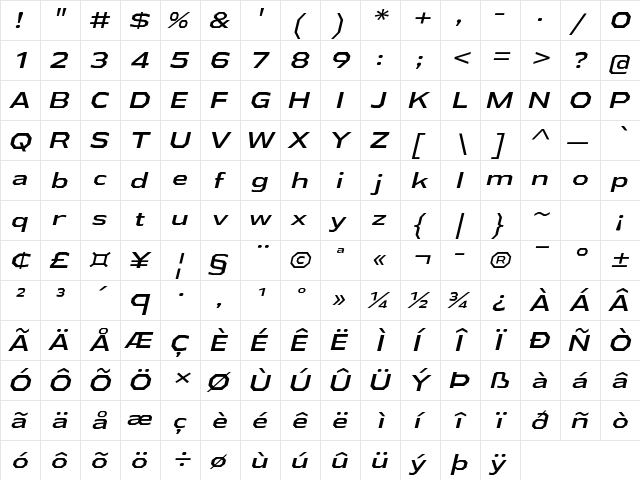
Athabasca Expanded Italic Font Preview
Athabasca Expanded Italic
Design Context for Athabasca Typeface
Athabasca offers clean, dependable letterforms without strong stylistic allegiance, making it a practical choice for designers who need flexibility. The dynamic lean of this cut emphasises speed and emphasis in any layout.
Pro Tip: Try Athabasca for annotation and caption copy alongside an upright companion — the contrast in angle creates a dynamic but ordered typographic system.